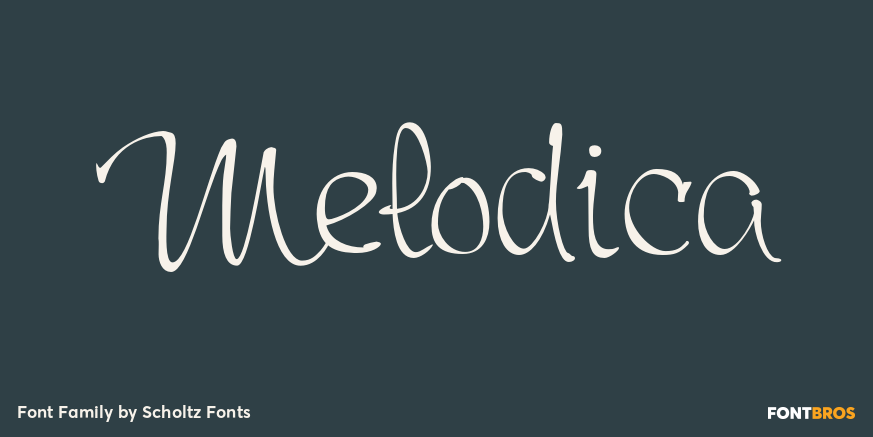
Melodica
About Melodica
Melodica was so named because the characters dance easily across the page as music wafts across a room. The font was designed to meet the need of designers that need clarity, sensuousness, a suggestion of the oddball, and a modicum of humor. With its…